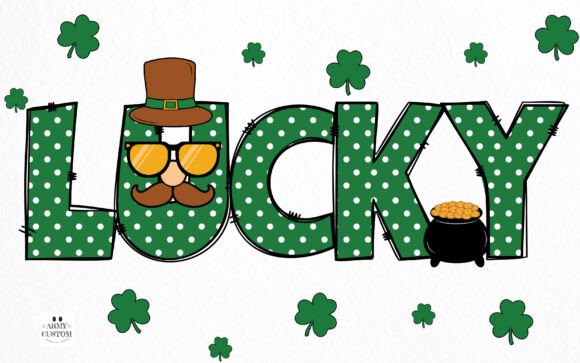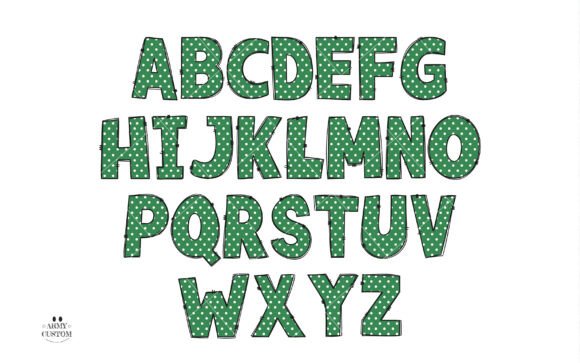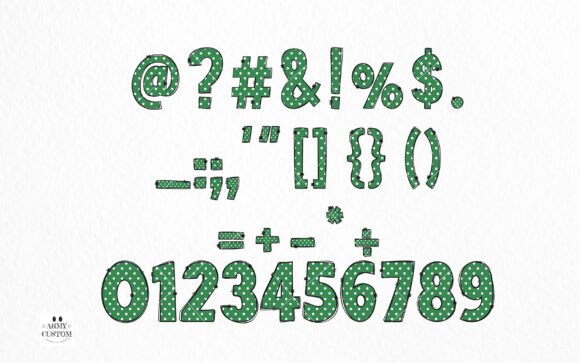
Introduction to Dot Shamrock Font
Are you dreaming of a creative project that captures the magic of St. Patrick’s Day? Do you want to add a touch of whimsy and fun to your designs? Look no further than the Dot Shamrock Font, a delightful and high-quality design resource that’s sure to bring a smile to your face.
This charming font is a must-have for designers looking to add a personal touch to their projects. With its bright green and black shamrock patterns, it’s the perfect way to celebrate Ireland’s favorite holiday. Plus, its transparent background makes it easy to use as a free download in a variety of design programs, including PhotoShop, Illustrator, and Silhouette.
Whether you’re a seasoned designer or just starting out, the Dot Shamrock Font is a valuable addition to your creative toolkit. Its unique and playful style makes it a standout design element that’s sure to elevate your projects and leave a lasting impression.
Key Features of Dot Shamrock Font
- High-quality design resource ideal for creative projects and modern designs.
- Designed with a unique, modern aesthetic, making it perfect for adding a touch of elegance to any design project.
Honest Review: Dot Shamrock Font
I recently came across the Dot Shamrock Font while searching for a unique design resource for a creative project. The first thing that caught my attention was the fact that it’s a free download, which is always a plus. The font itself has a high quality, transparent background that makes it perfect for use on a variety of backgrounds.
What works well about the Dot Shamrock Font is its versatility. It can be used for both digital and print projects, making it a great addition to any designer’s toolkit. The font also has a playful, whimsical feel to it, which makes it perfect for use in designs that need a bit of personality. ✨
Some limitations of the Dot Shamrock Font include the fact that it may not be suitable for use in professional or corporate settings, as it can come across as a bit too playful. Additionally, the font may not be available in as many languages as some other fonts, which could be a limitation for designers who need to work in multiple languages. ⚠️
Overall, I was impressed with the Dot Shamrock Font and would definitely recommend it to designers who are looking for a unique and high-quality font for their creative projects. With its transparent background and versatile design, it’s a great addition to any designer’s toolkit.
- High quality, transparent background
- Perfect for digital and print projects
- Unique and playful design
Tips for Getting the Most Out of Dot Shamrock Font
For high-quality results, use Dot Shamrock Font in combination with other design elements, such as images and shapes. You can also use it for free download and customize it to fit your creative project.
Dot Shamrock Font is ideal for use in design projects that require a unique and creative touch, such as logos, brochures, and business cards. Its transparent background makes it perfect for use in design projects where a background is not needed or wanted.
Is the Dot Shamrock Font suitable for use on a transparent background?
The Dot Shamrock Font has a transparent background, making it ideal for use in design projects where a clear background is required. However, please note that the font’s design may not be suitable for use in very small sizes or on very low-resolution screens. Always test the font in your design software to ensure it meets your project’s requirements.